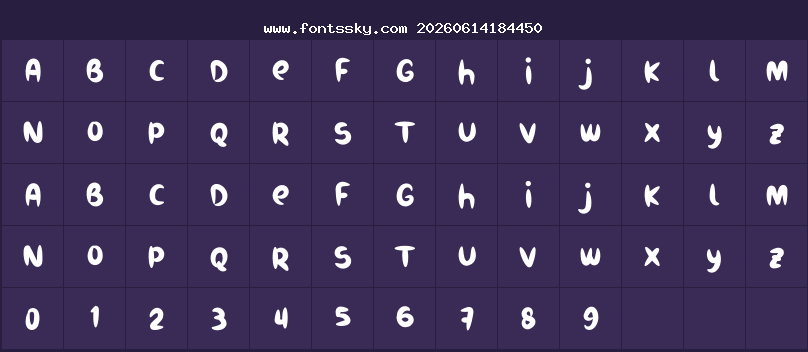
Burukuduk Preview
• Font Name: Burukuduk
• Full Font Name: Burukuduk
About Burukuduk.otf
Burukuduk.otf is a modern, elegant sans-serif font designed for ultimate readability and visual harmony. Perfect for branding, headlines, web design, and print materials.